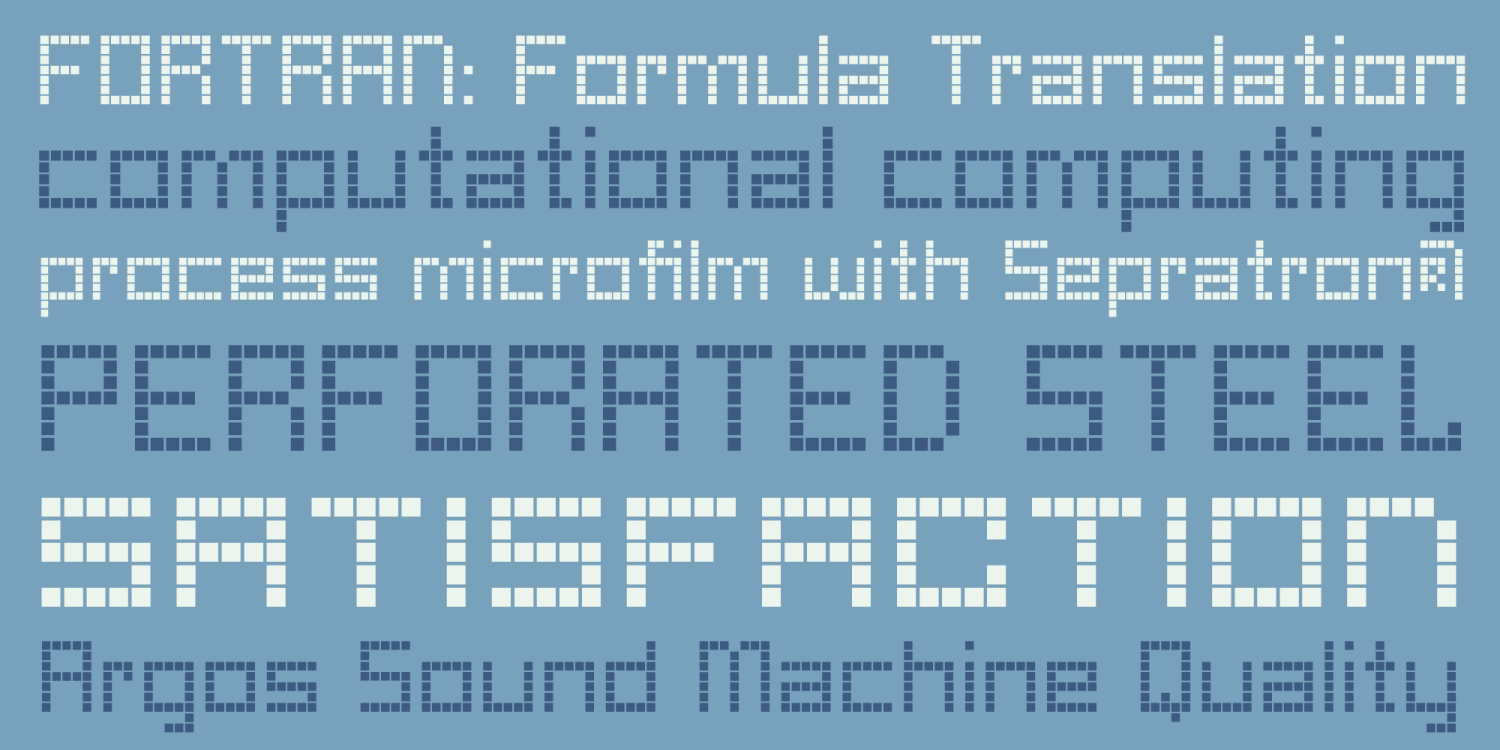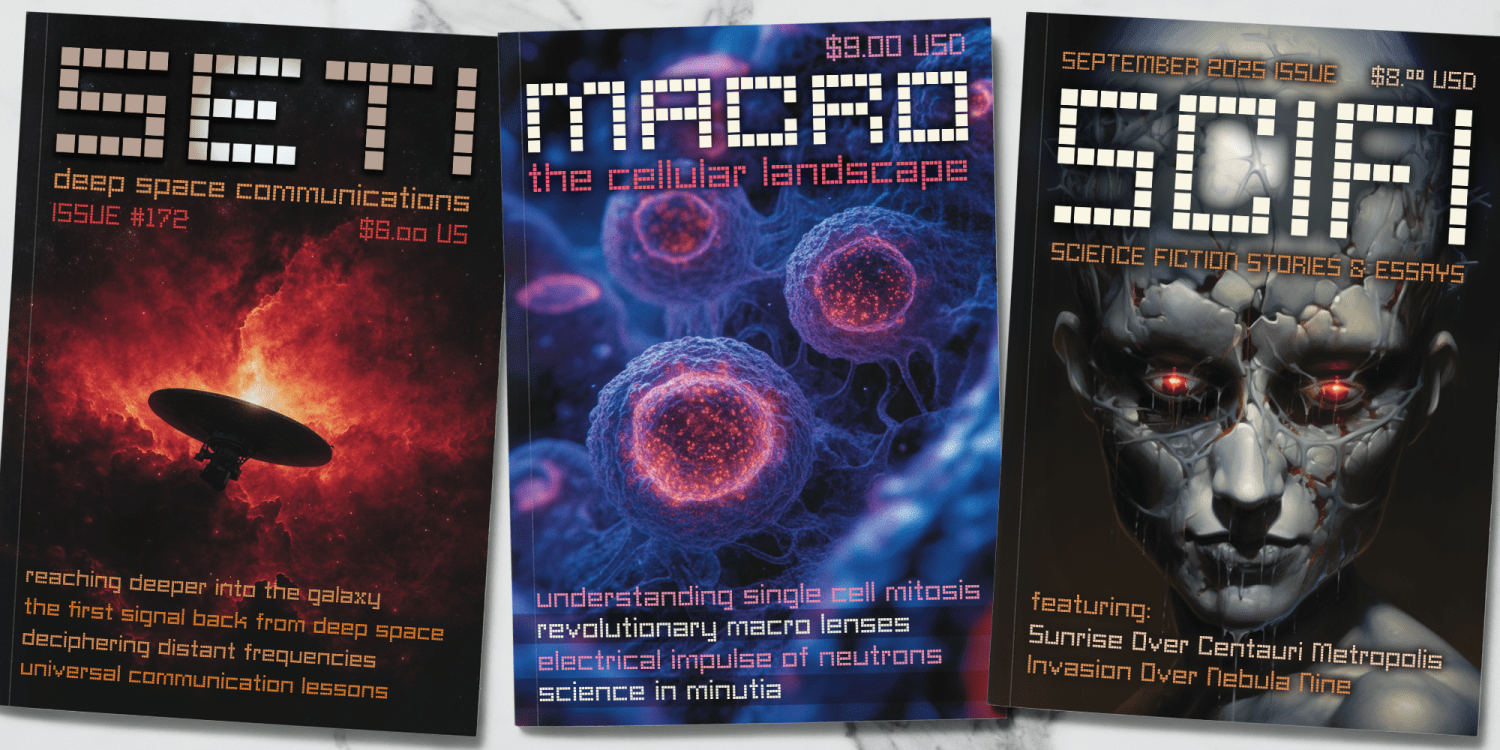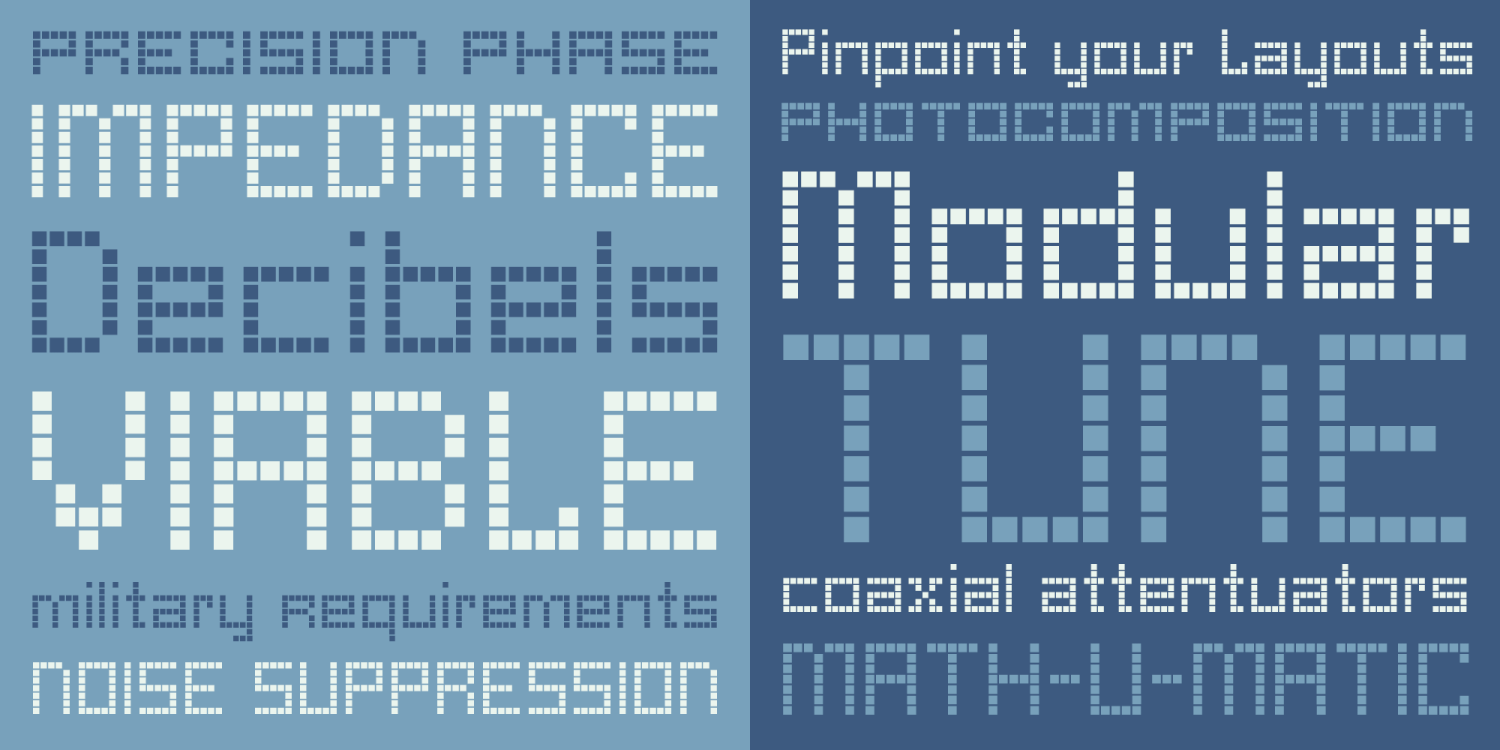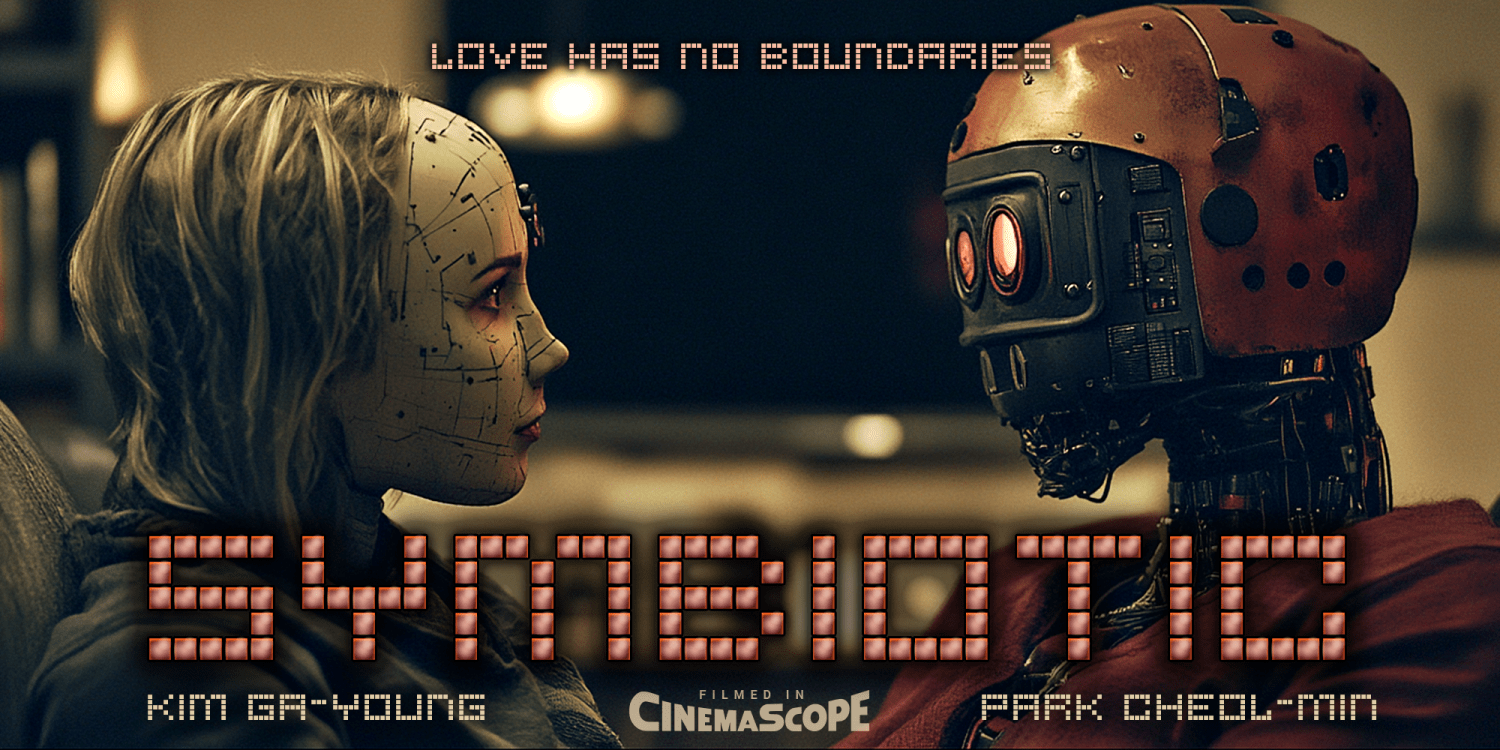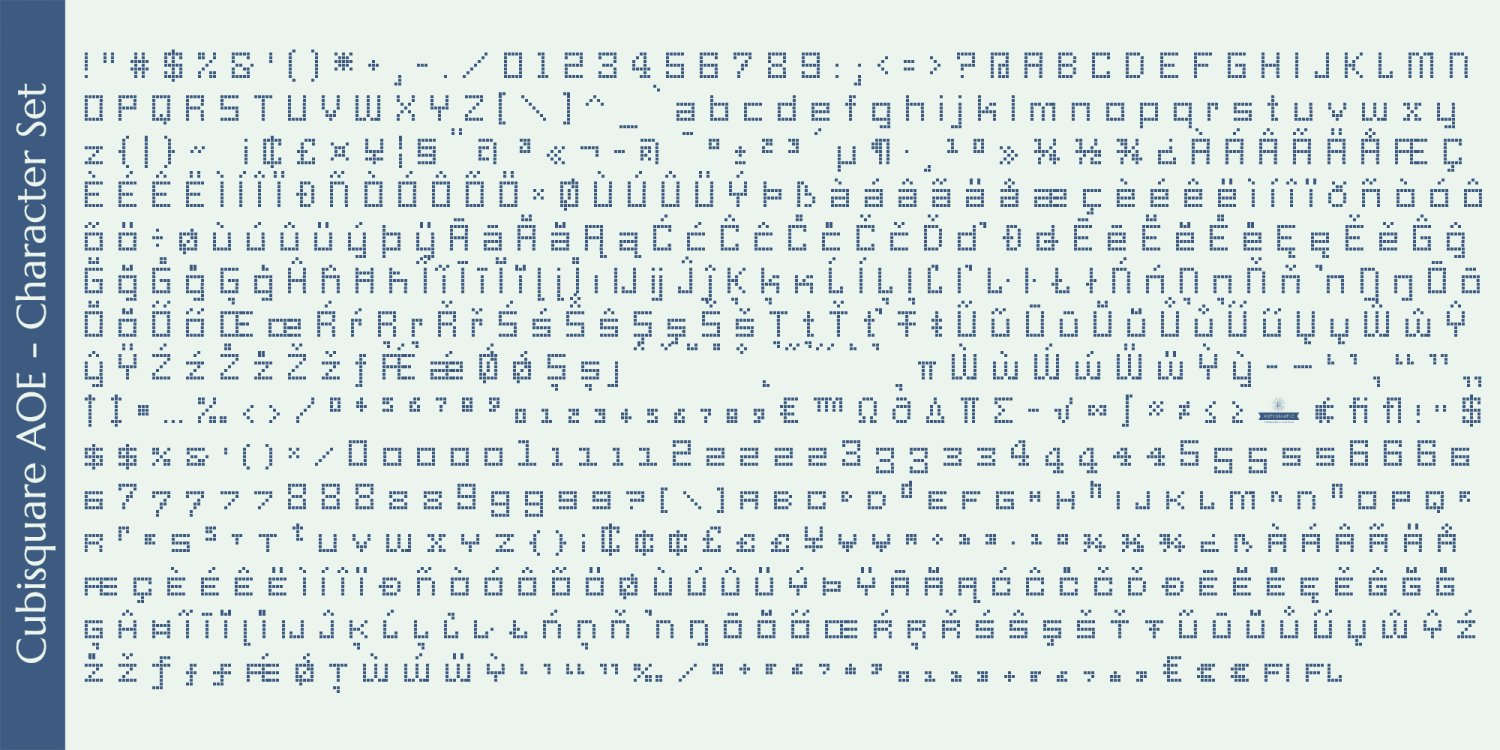
Cubisquare AOE
Cubisquare AOE is a revival of a LetterGraphics film type called Times Square, which was originally designed by Alfred Guerra. This pixel grid based technology typeface, it has been expanded from the original specimen to include Smallcaps characters and Old Style figures. It's not an all-purpose typeface, it's not an everyday typeface, but it is a cool typeface for the right design projects, and if this caught your eye, you have ideas in mind already.
Cubisquare AOE features a micro-gapped pixel grid styling and no kerning to maintain the grid gapped design. It might be considered somehwat of a ticker typestyle. It reminds me of old Airport Terminal or Stock Tickers, but has less formulaic modular styling in its letters. Nevertheless, it's a fun typeface that needed to be preserved and used again.